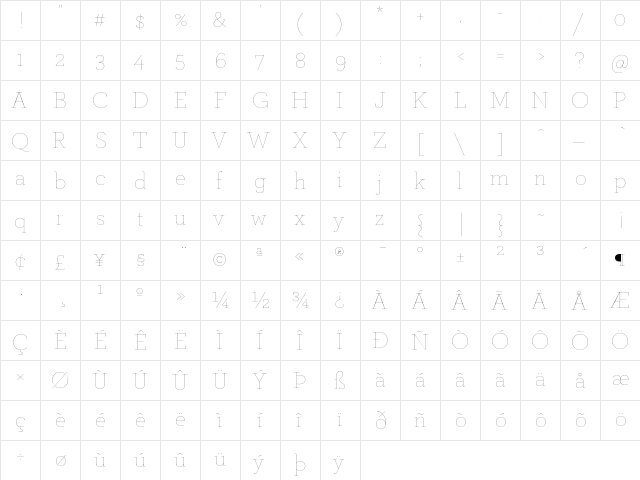
Archer Hairline
| Foundry | Hoefler & Frere-Jones |
| Designer | Hoefler & Frere-Jones |
Design Context for Archer Typeface
Archer takes a measured approach to typography — its balanced proportions and neutral character make it a reliable workhorse for both digital and print work. The delicate stroke weight brings airiness and refinement to layouts.